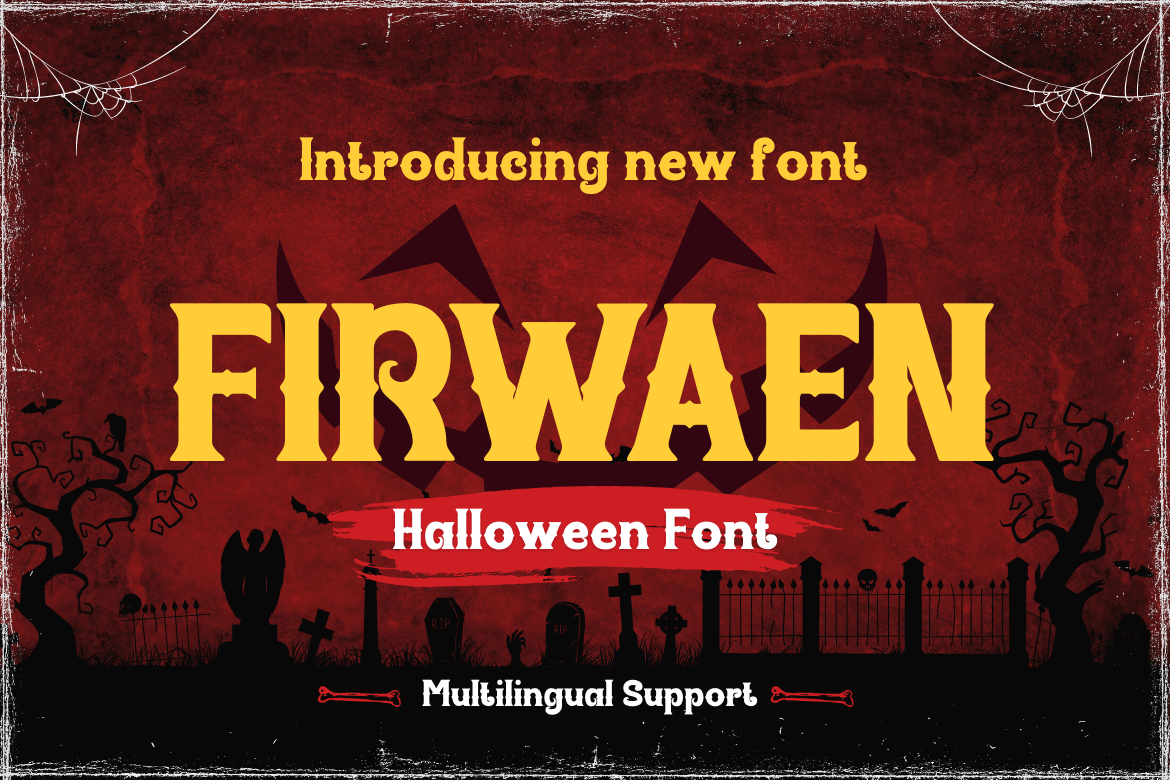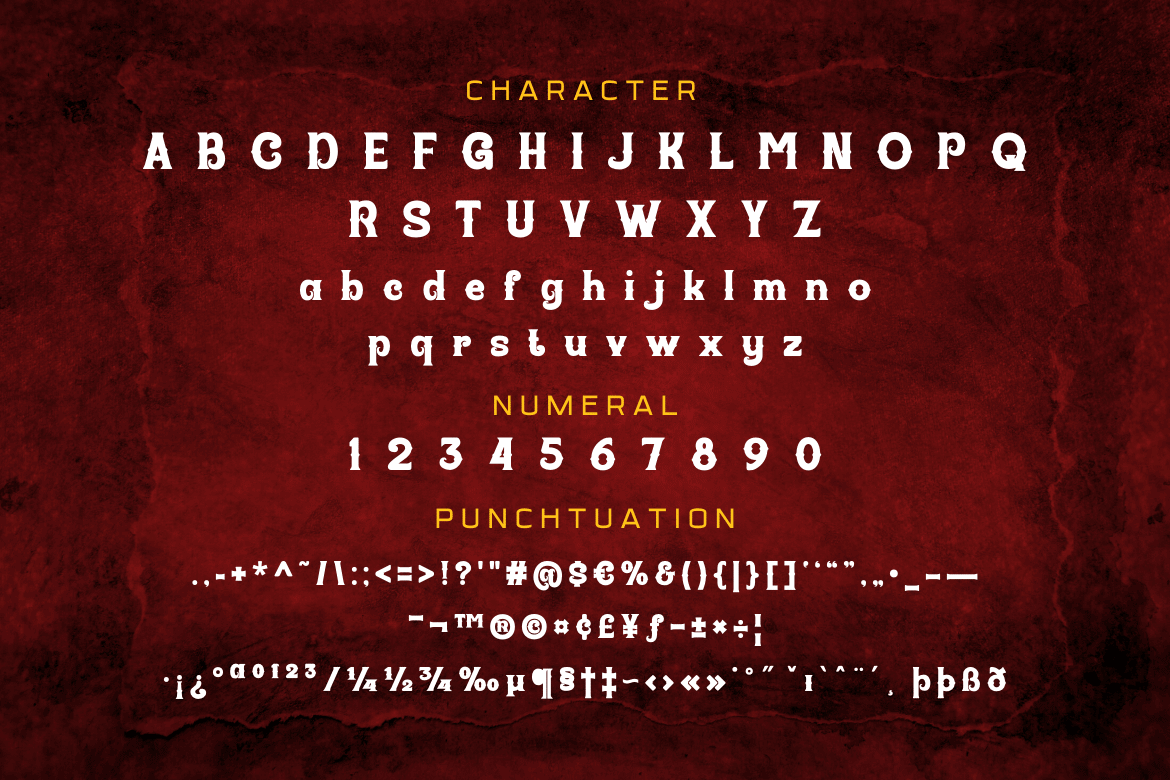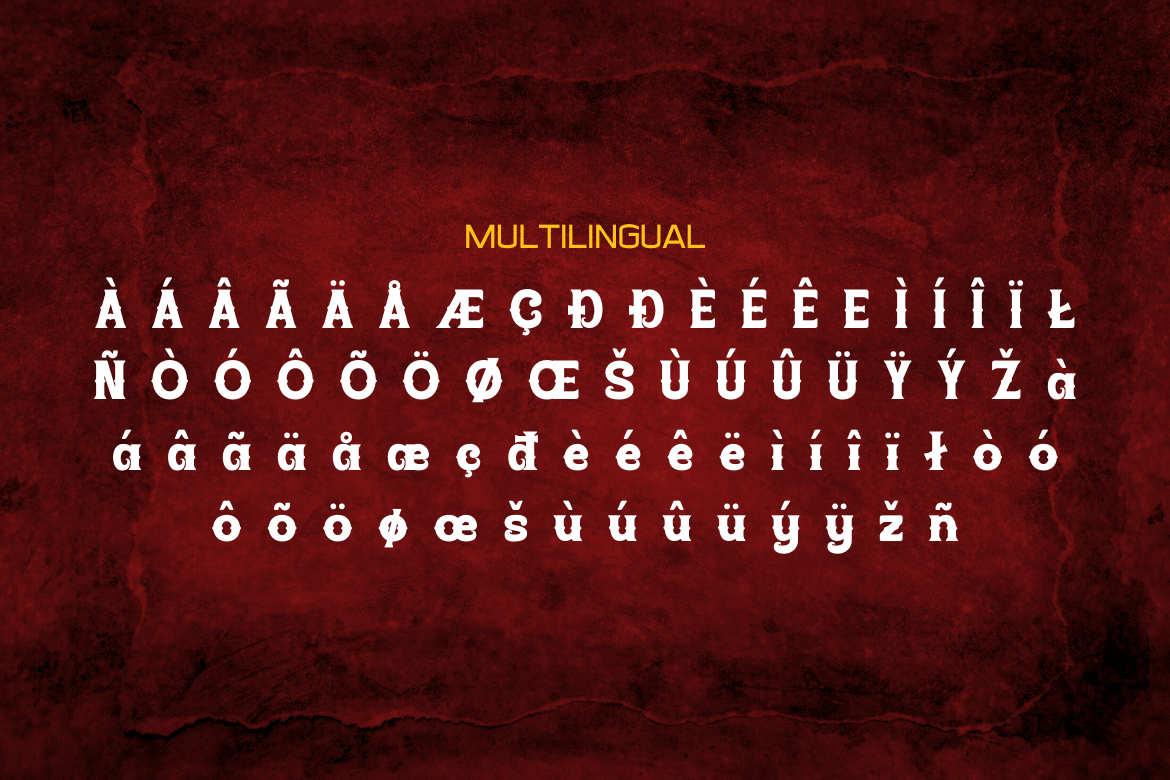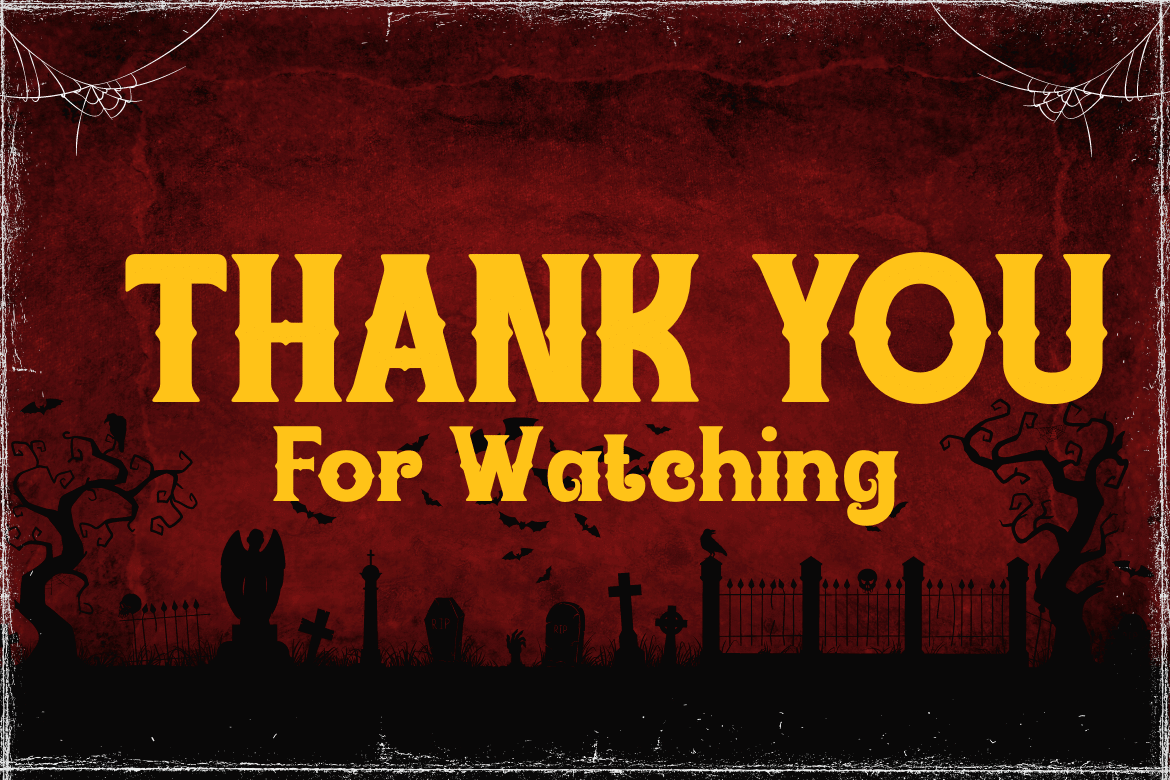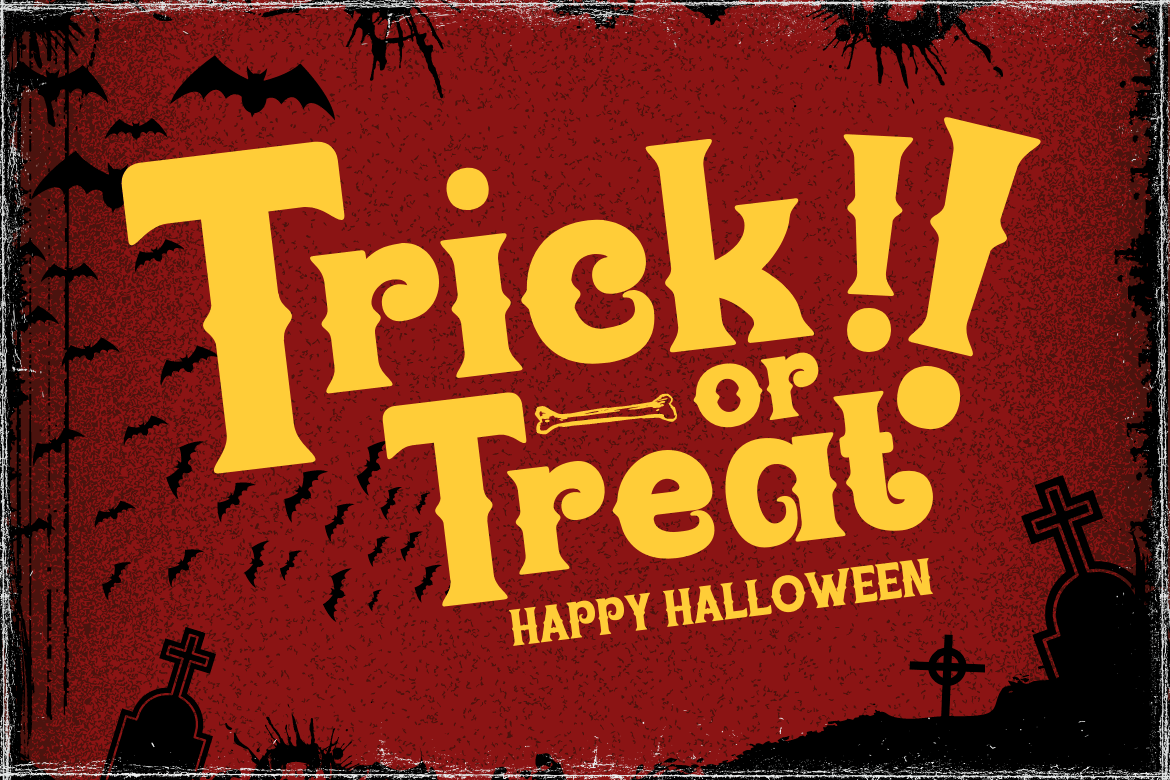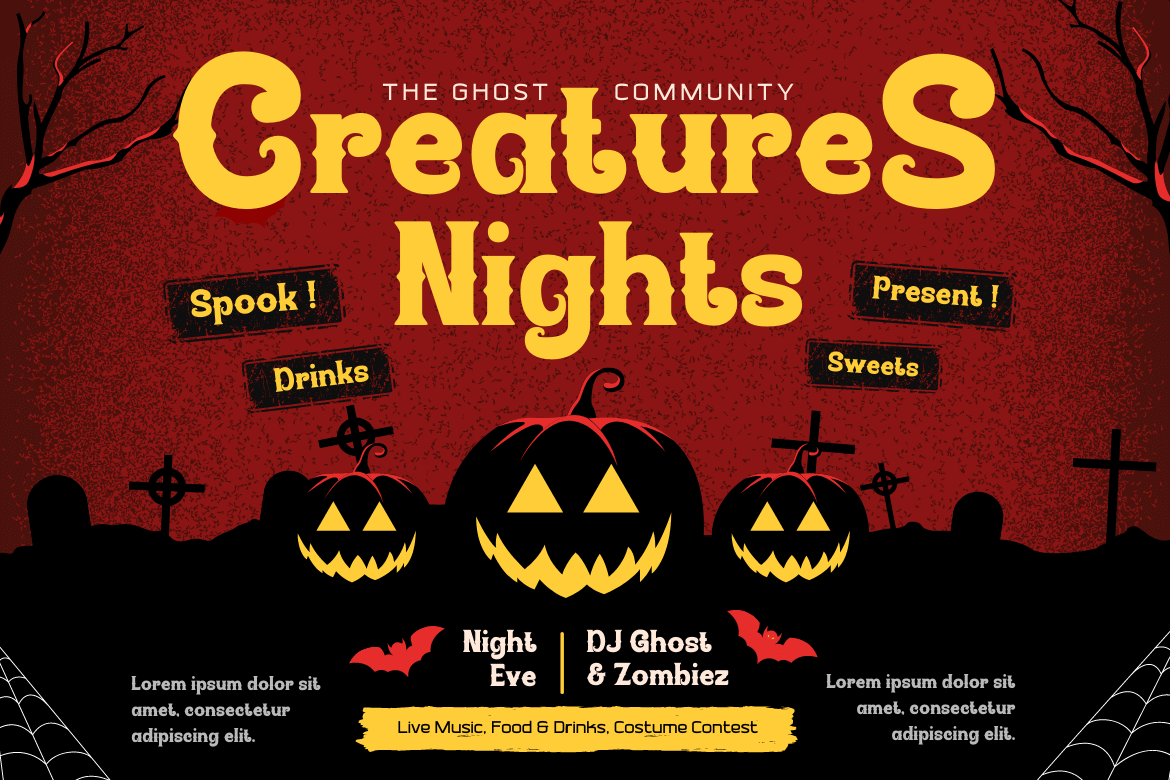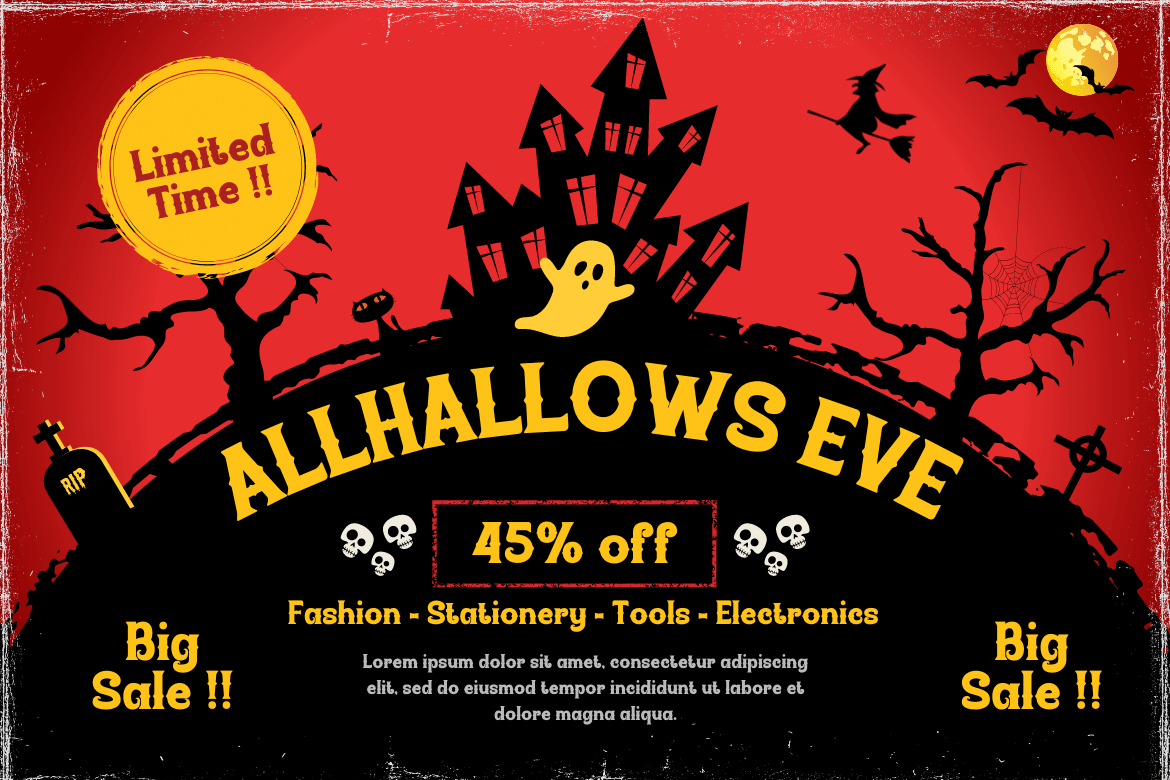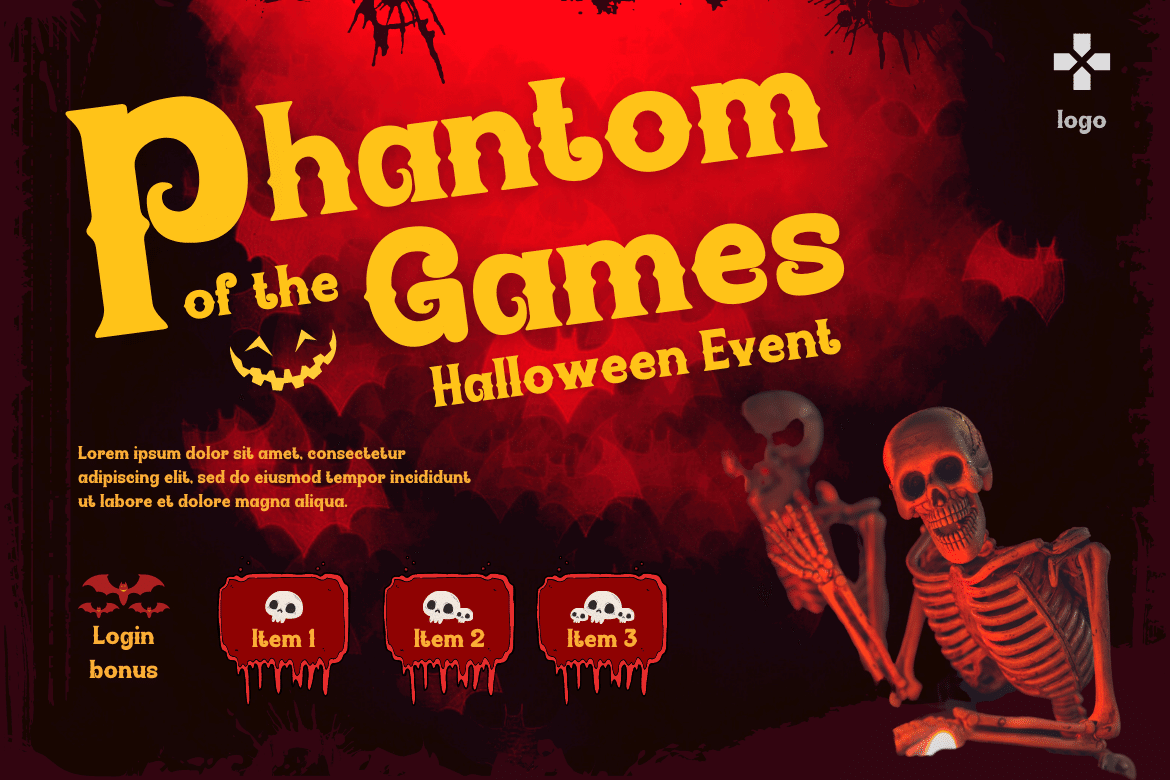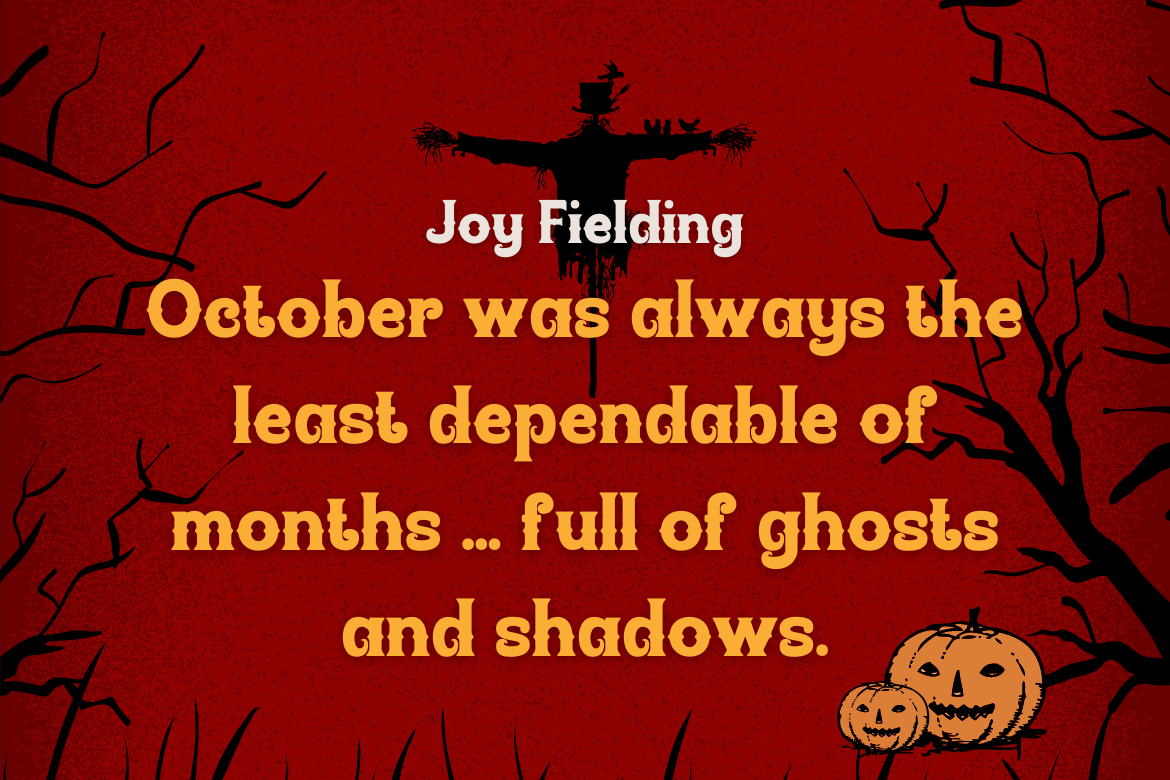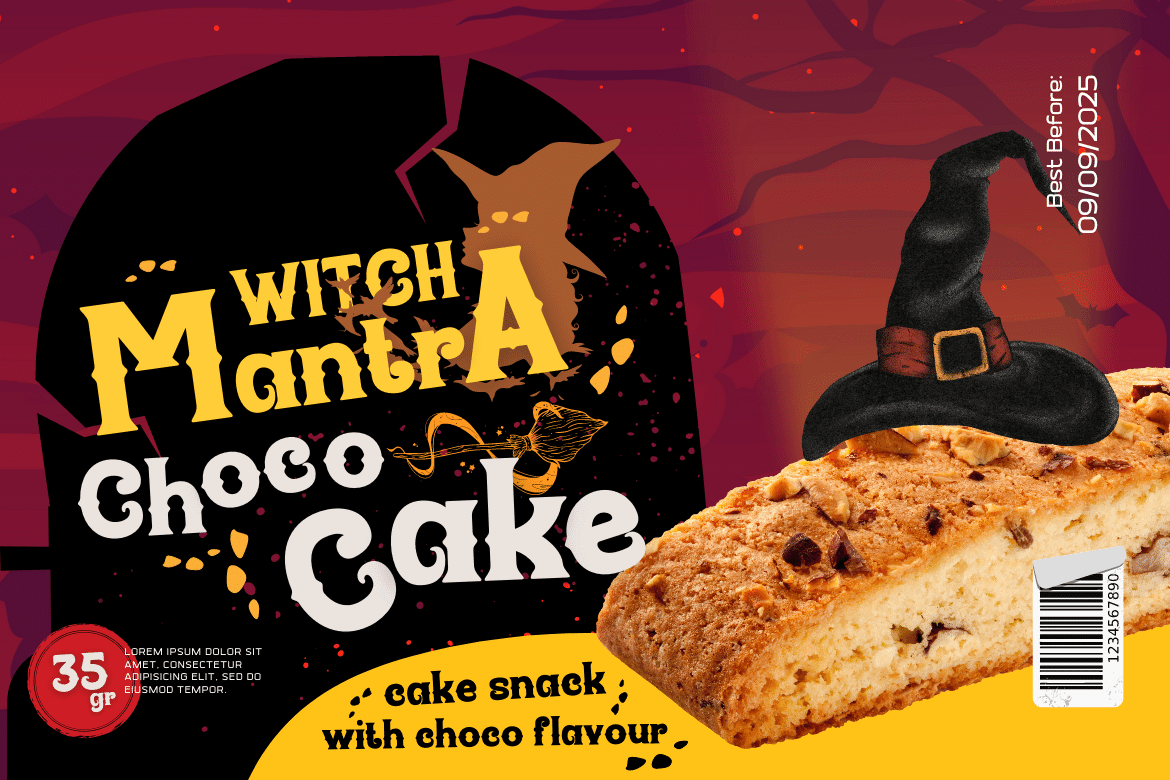
FIRWAEN
Introducing our newest display font FIRWAEN. This font is perfect for any Halloween, horror project, especially signs and decorations.
Choose this font for your special project. This font is perfect for party projects, invitations, cards, posters, or anything else you want.
Of course with this font your various design projects will be perfect and amazing, get a beautiful title and start using our font for your special project.